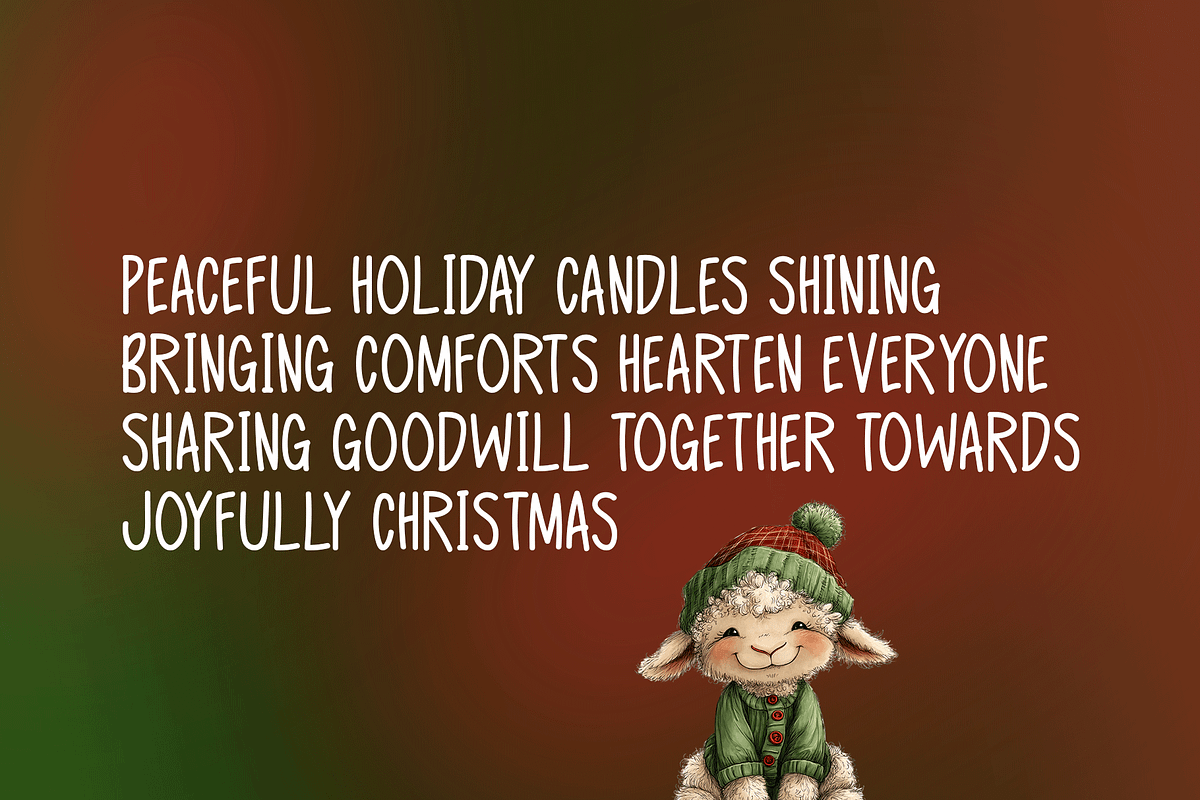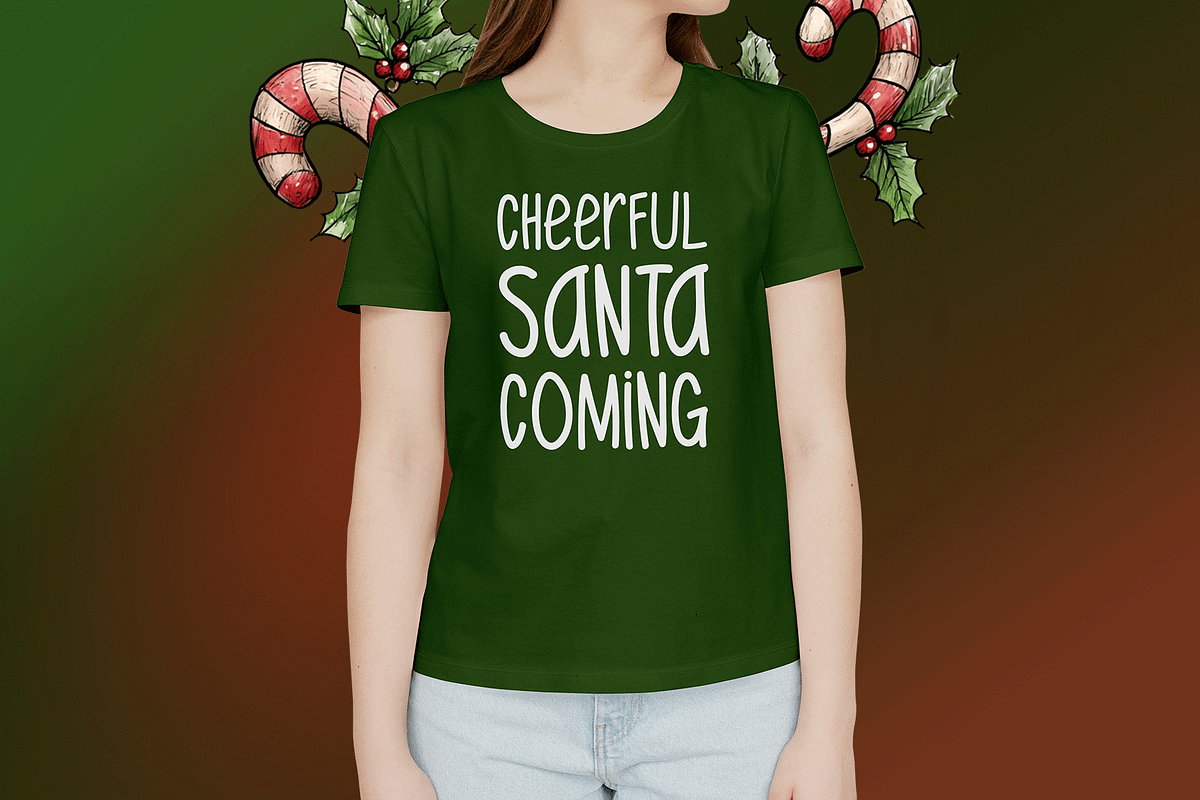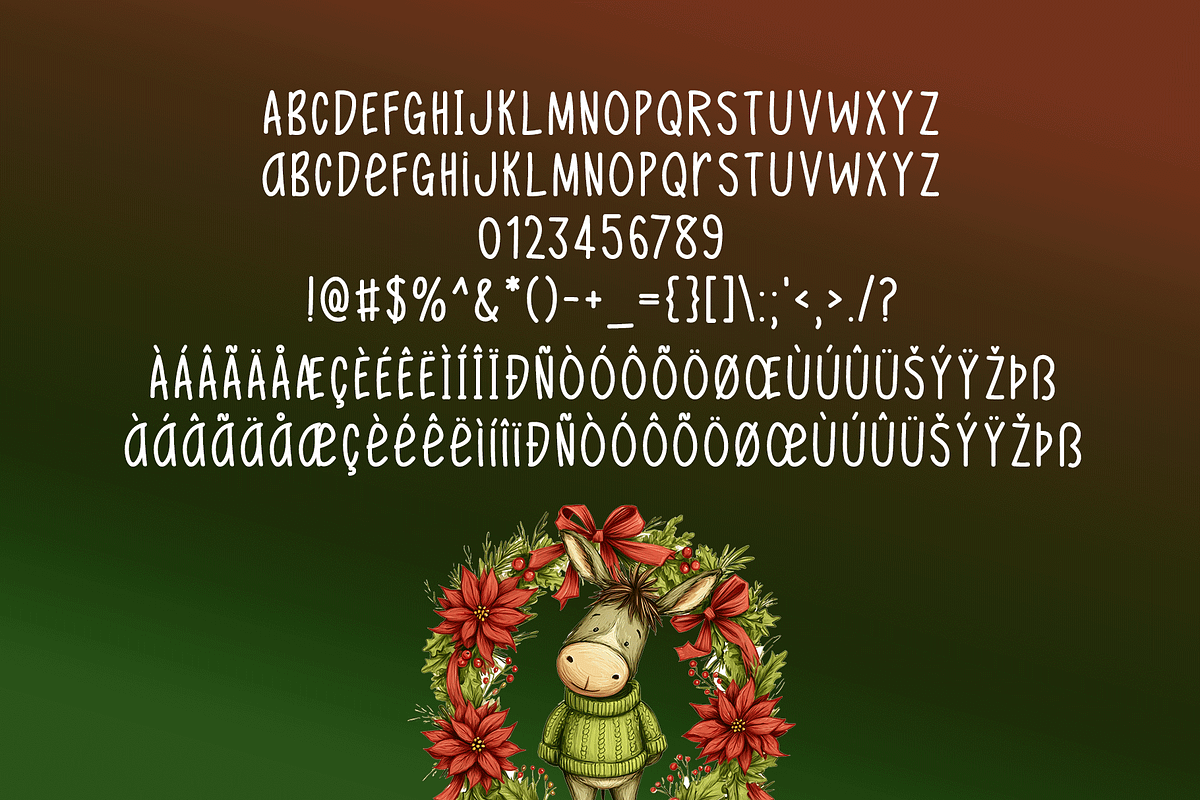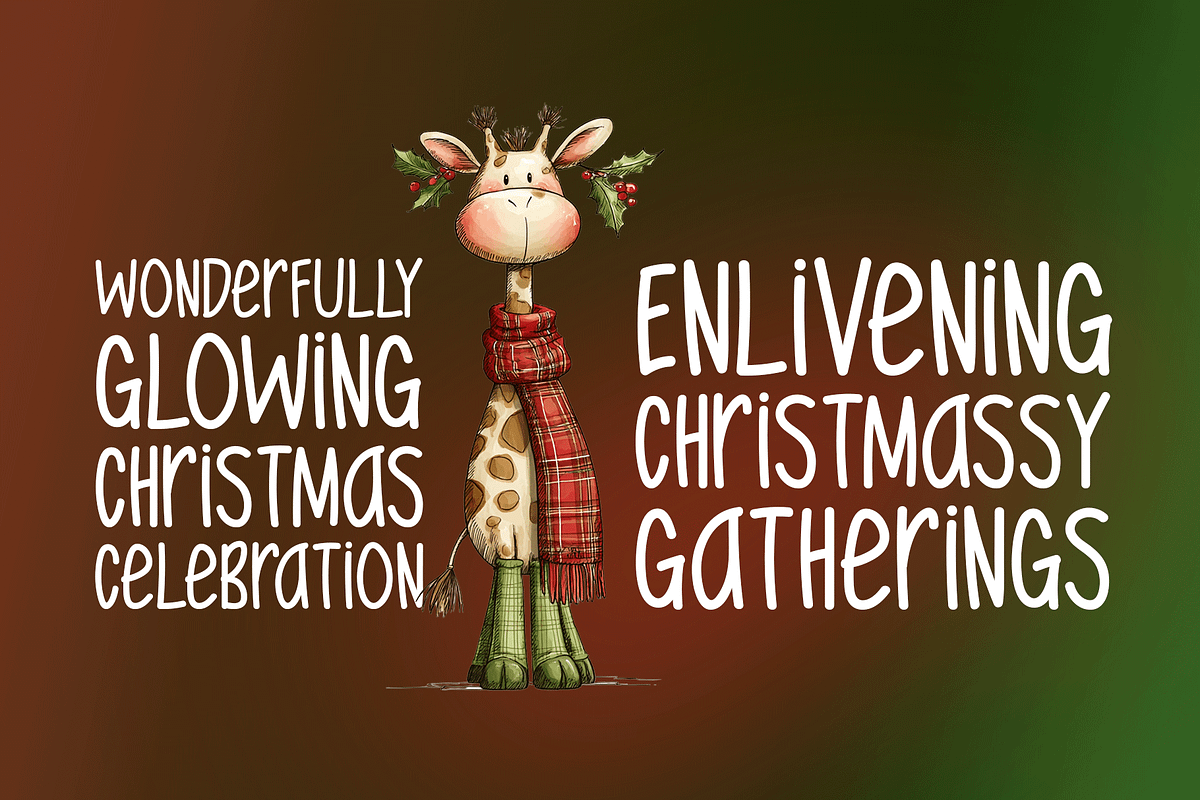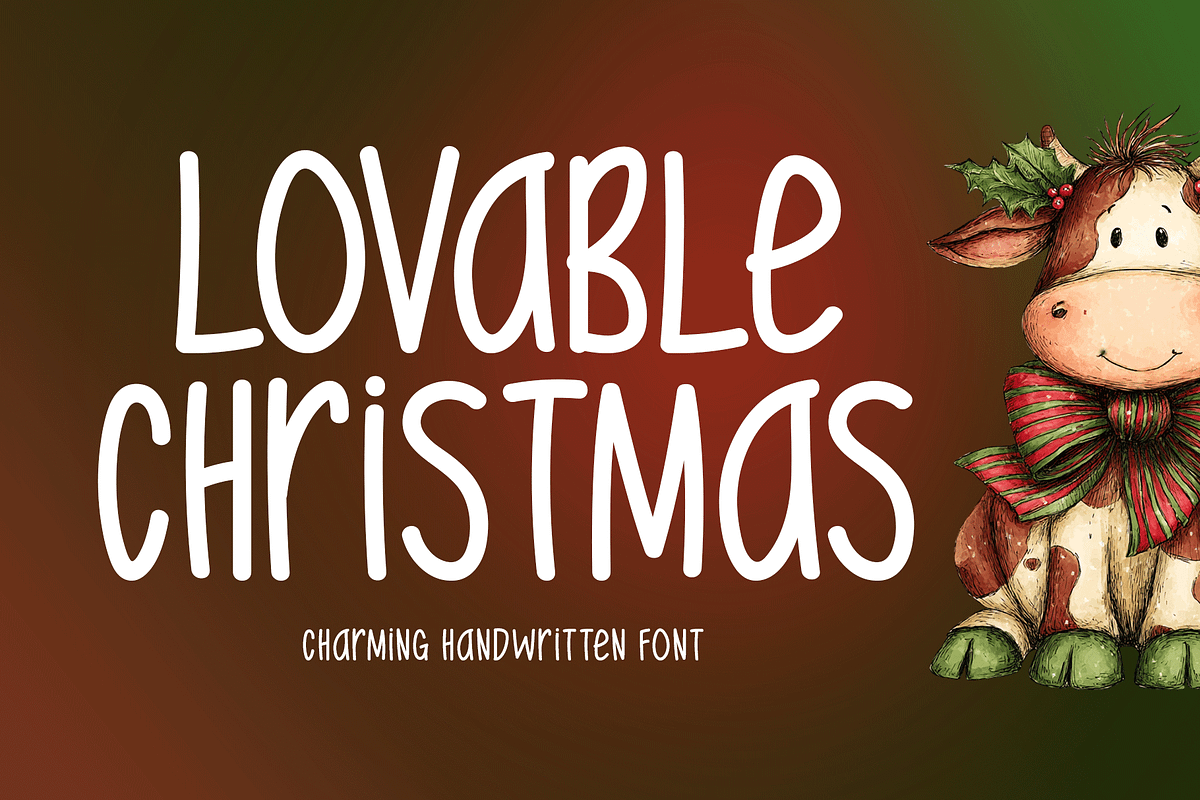
Lovable Christmas
Introducing Lovable Christmas!
Lovable Christmas is a delightful handwritten font filled with festive charm and warm personality. Its smooth, playful strokes make it an excellent choice for holiday-themed projects such as greeting cards, t-shirts, invitations, posters, music covers, and web graphics. Whether you're designing for Christmas celebrations or adding a cheerful touch to everyday creations, Lovable Christmas brings joy, coziness, and a handcrafted feel to every design.
Includes a range of multilingual support